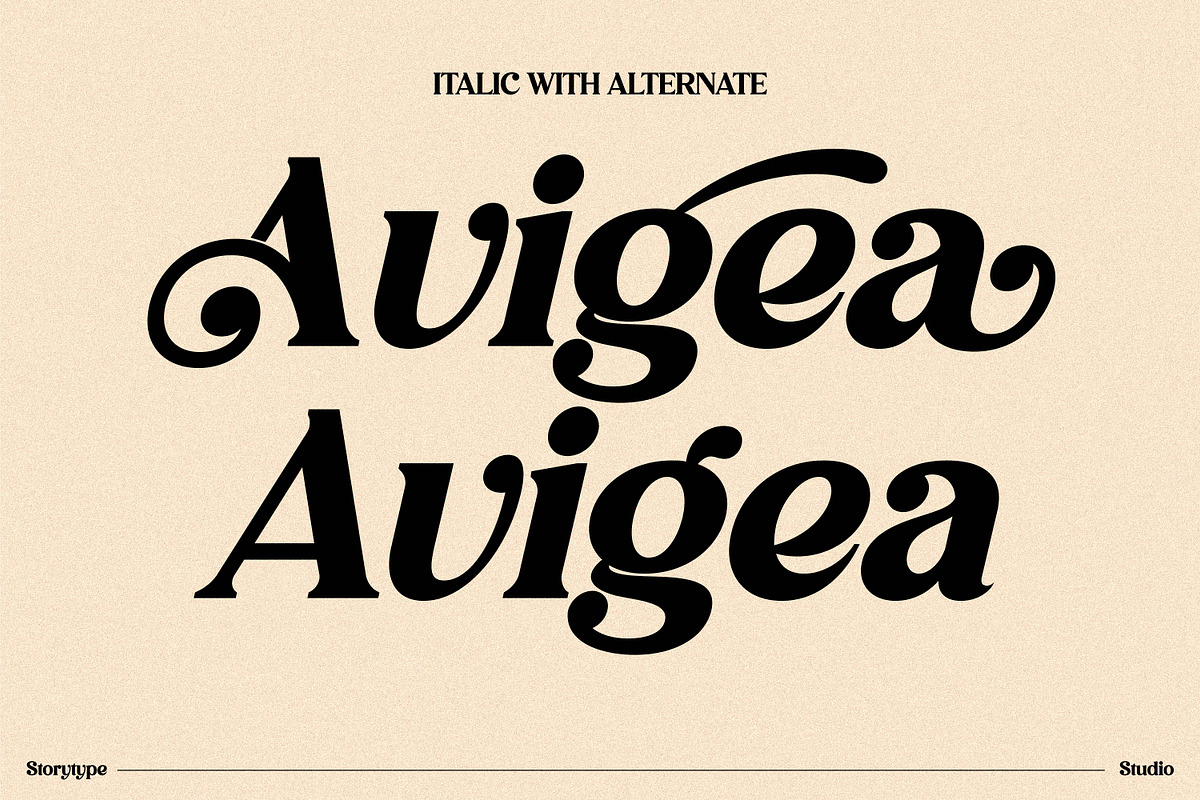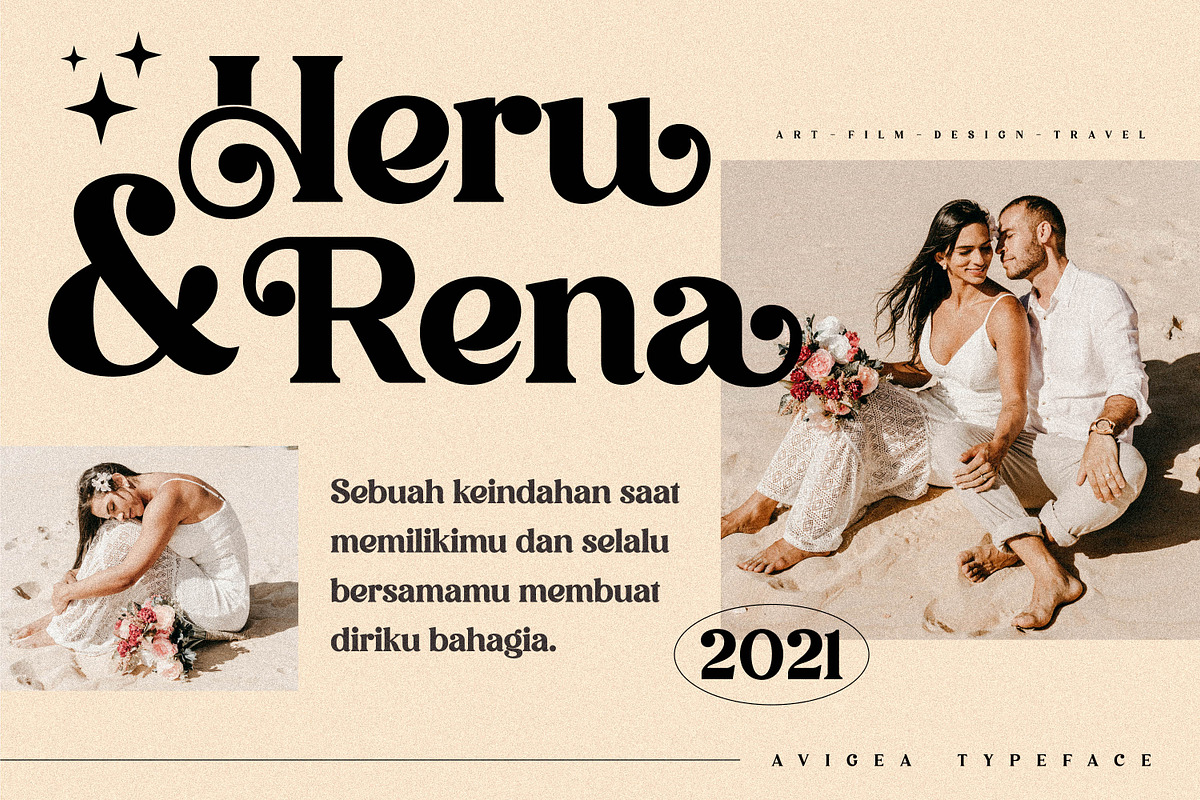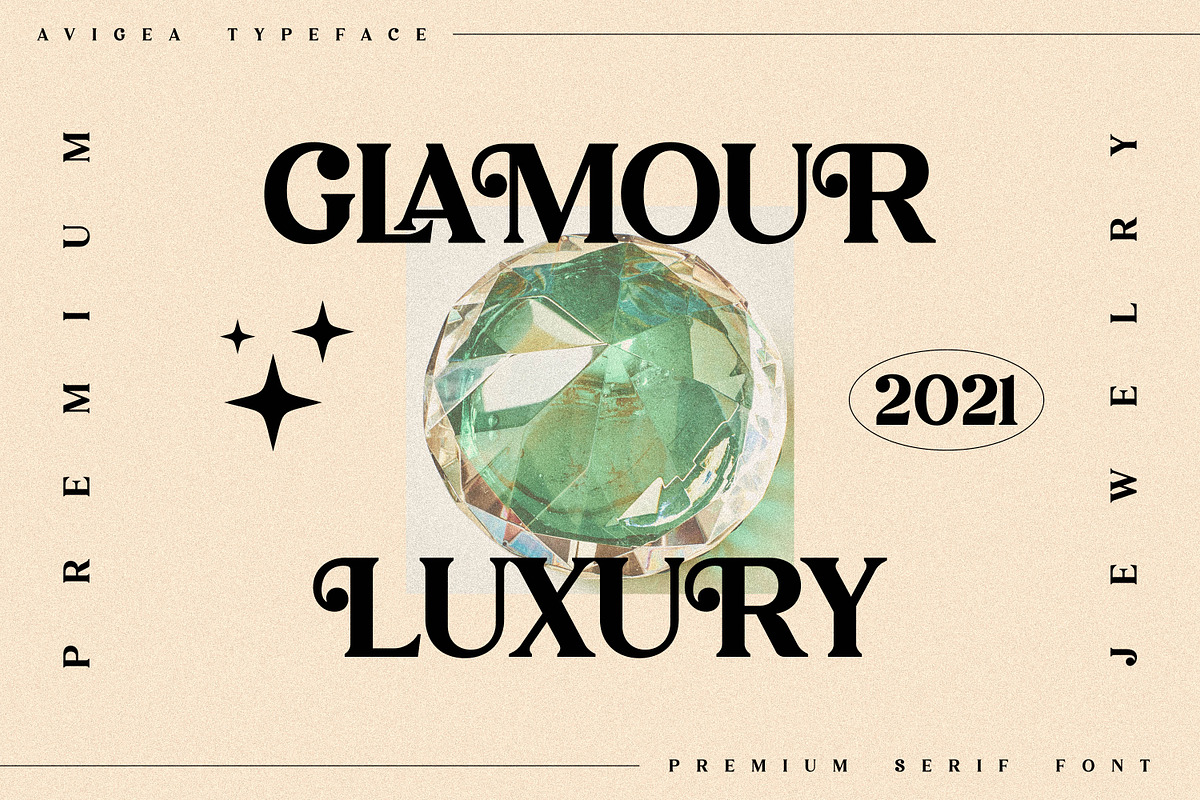
Avigea Font
Avigea is a serif modern and classic typeface that has own unique style & modern look. This typeface is perfect for an elegant & luxury logo, book or movie title design, fashion brand, magazine, clothes, lettering, quotes, and so much more.
• Uppercase and Lowercase
• Numerals
• Punctuations (OpenType Standard)
• Accents (Multilingual Characters)
• Ligatures and Alternative Style Stylistic Set